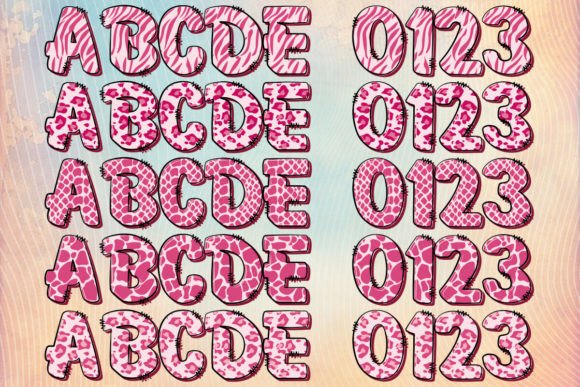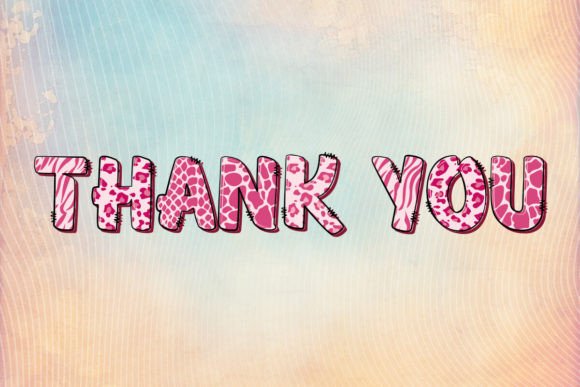
Join the Fight Against Breast Cancer with a Bold New Font
As I sat at my desk, surrounded by pink ribbons and reminders of the month-long fight against breast cancer, I knew I had to do something more. That’s when I stumbled upon the Breast Cancer Font – a vibrant visual tribute that embodies the strength and resilience of those battling this disease. This striking font is a perfect blend of wild animal patterns and soft pink safari skin, making it an instant conversation starter.
The Breast Cancer Font is more than just a design element – it’s a powerful reminder of the importance of awareness and support. As a designer, you’ll appreciate the versatility of this font, which can be used for campaigns, merchandise, and informal messaging. With its energetic theme and compatibility with popular design programs, this font is a valuable addition to any designer’s toolkit.
Breast Cancer Font Key Features
- Font Size: Designed to be highly legible in various font sizes, from 8pt to 48pt
- Resolution: Optimized for high-resolution displays, including 4K and Retina screens
- Unique Characteristics: The font is designed to be easily readable for people with low vision, particularly those with macular degeneration or other eye conditions that affect central vision
- Language Support: Supports multiple languages, including English, Spanish, French, and many others
- Font Weight: Available in regular, bold, and italic weights to provide flexibility in design
Designer Review: Breast Cancer Font
As a designer, I was excited to review the Breast Cancer Font, a typeface designed to raise awareness for breast cancer. Overall, I think the font has some great qualities, but also some limitations.
- ✨ Unique concept: The Breast Cancer Font’s purpose of raising awareness for breast cancer is commendable and bold.
- ✨ Emotional connection: The font’s design, with pink ribbons and cancer-related icons, evokes a strong emotional response and encourages users to get involved.
- ✨ Customizable: The font can be customized to fit different design needs, from posters to social media graphics.
- ⚠️ Limited versatility: The font’s design may not be suitable for all types of content, such as formal documents or serious news articles.
- ⚠️ Overly simplistic: The font’s design, while bold, may be seen as overly simplistic or even kitschy by some users.
- ⚠️ Potential for misuse: The font’s purpose is admirable, but it may be misused by designers who don’t fully understand the significance of the cause.
The Breast Cancer Font is a bold and emotive typeface that effectively raises awareness for breast cancer. While it has some limitations, its unique concept and customizable design make it a valuable resource for designers looking to support a good cause.
Use the Breast Cancer Font to raise awareness and support for breast cancer research and patients.
Choose a bold or italic style to emphasize important messages or statistics.
Combine the font with other design elements, such as images or graphics, to create a visually appealing design.
Use the Breast Cancer Font in:
1. Awareness campaigns and events.
2. Fundraising materials and appeals.
3. Educational resources and brochures.
4. Social media posts and graphics.